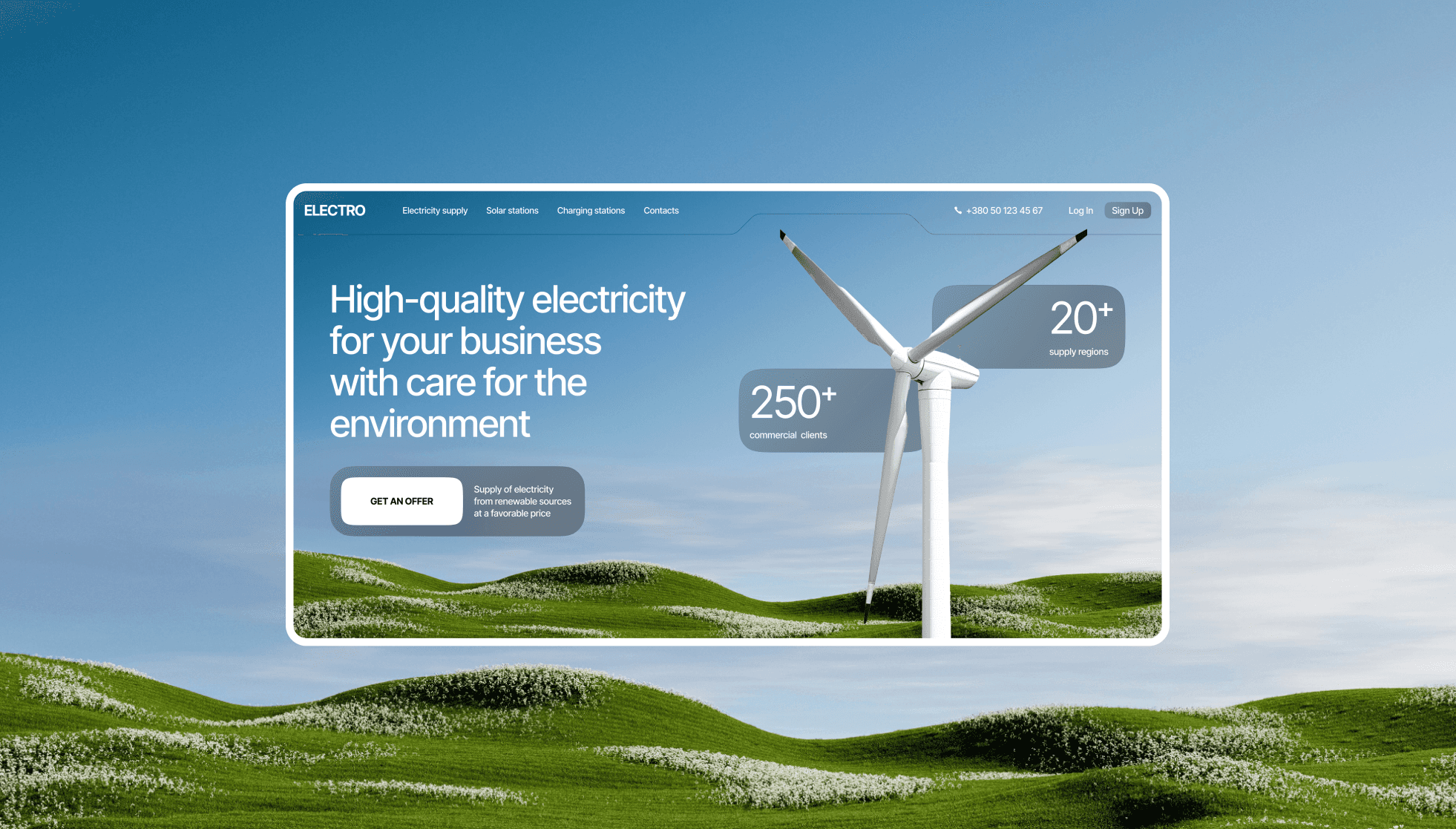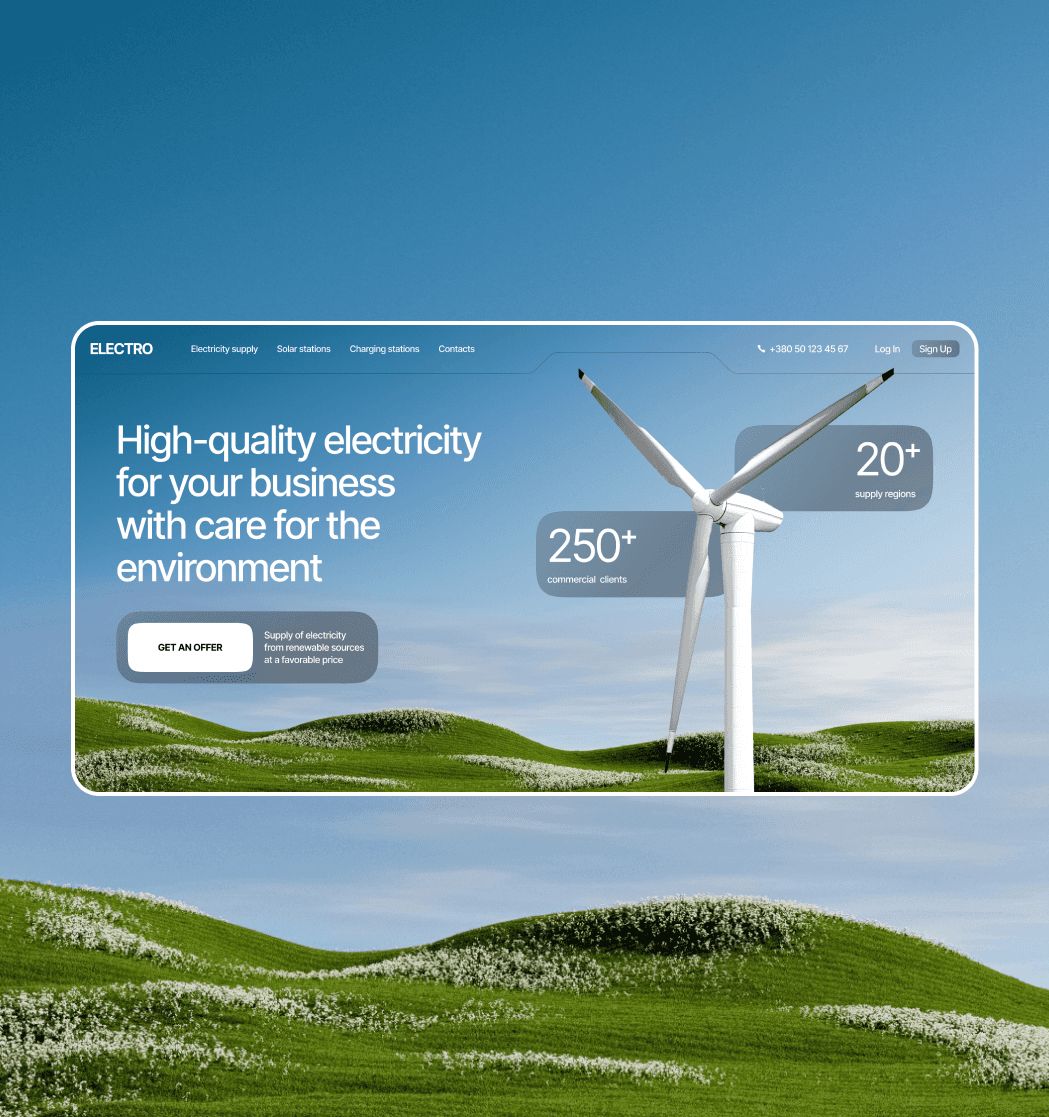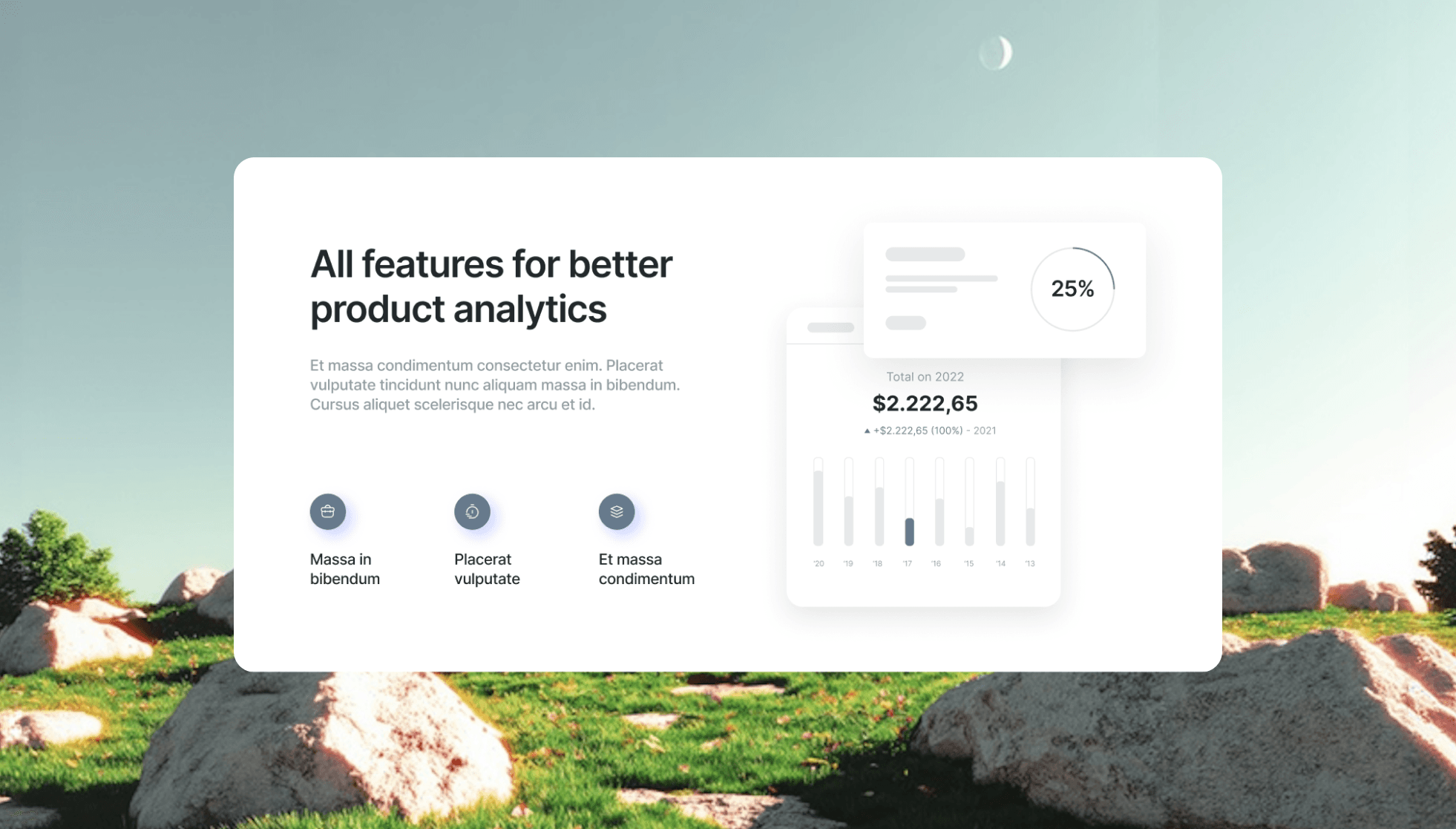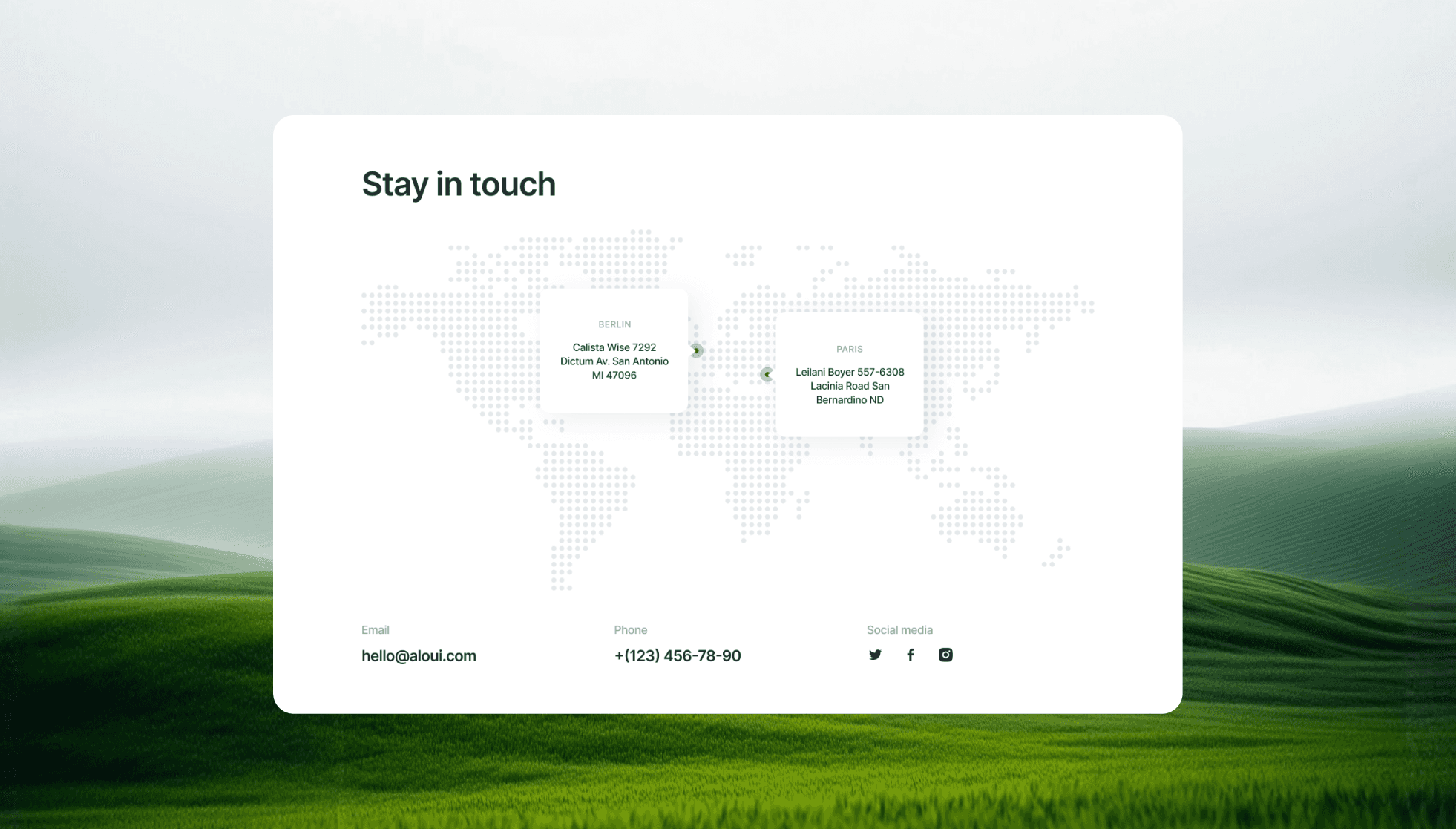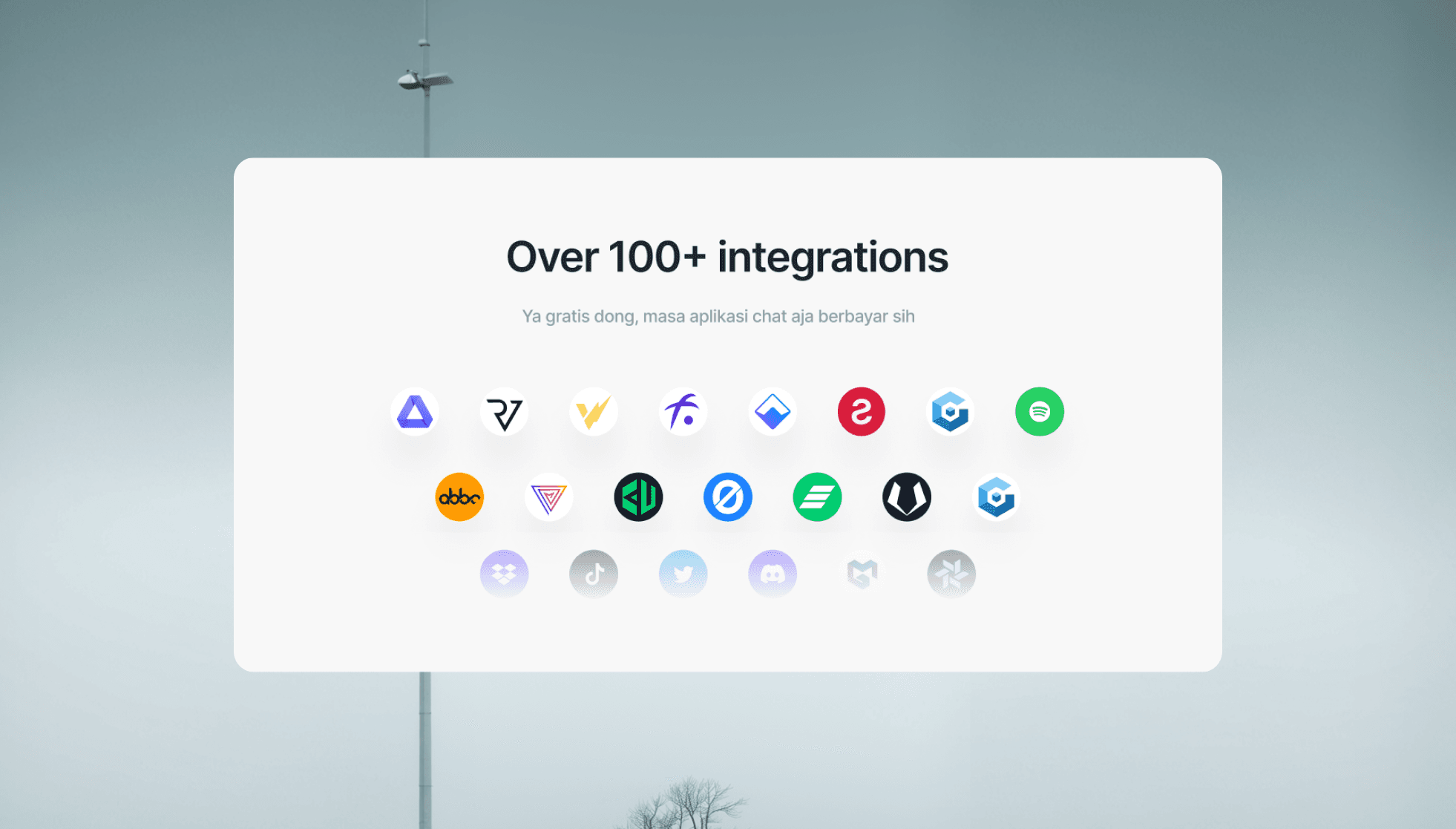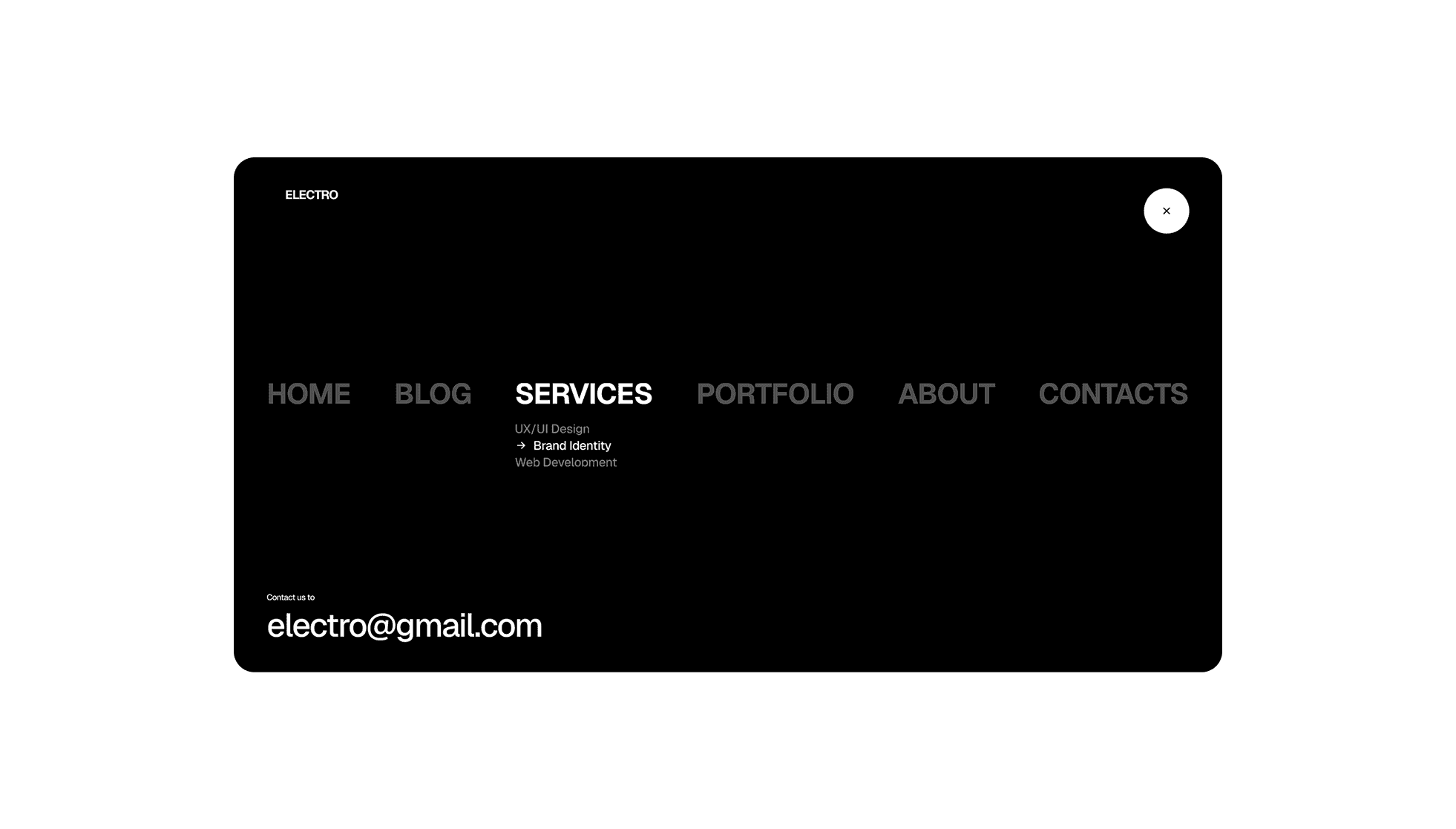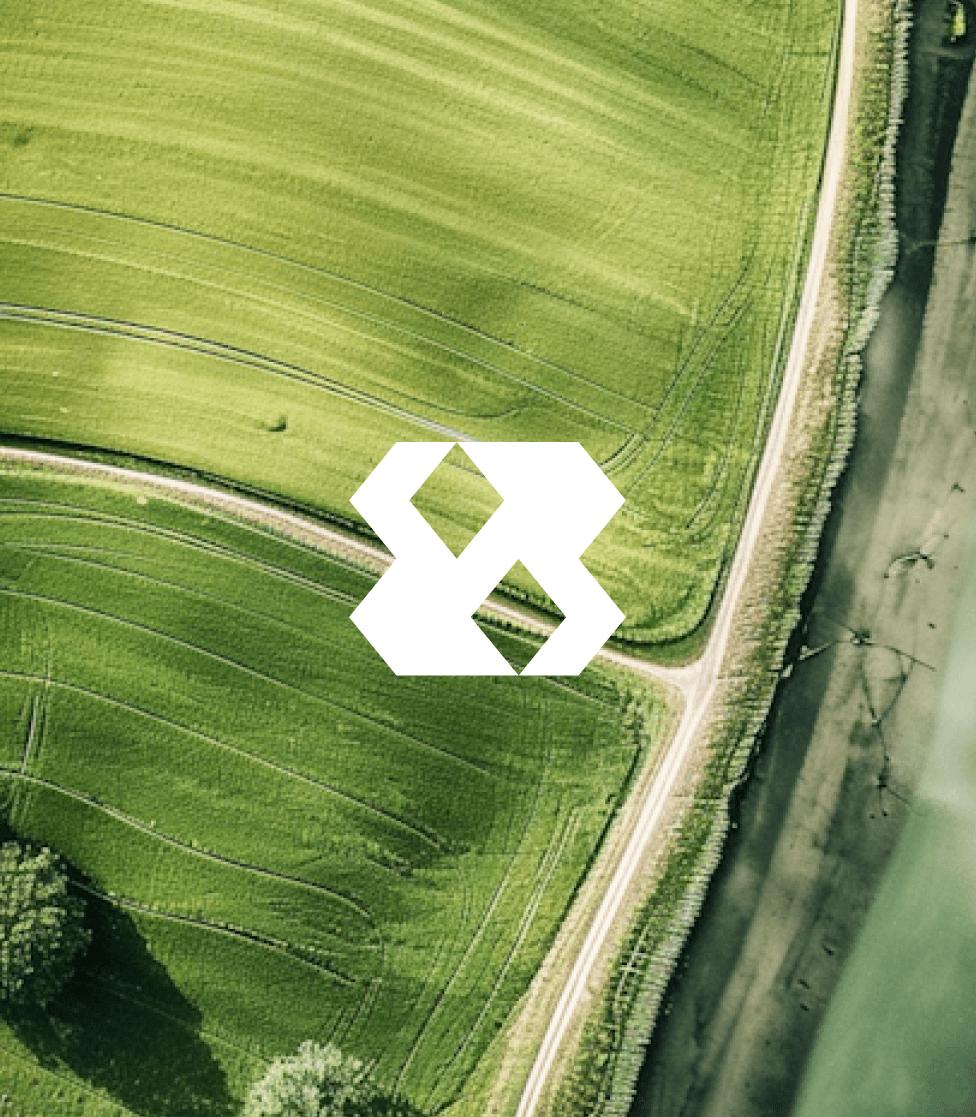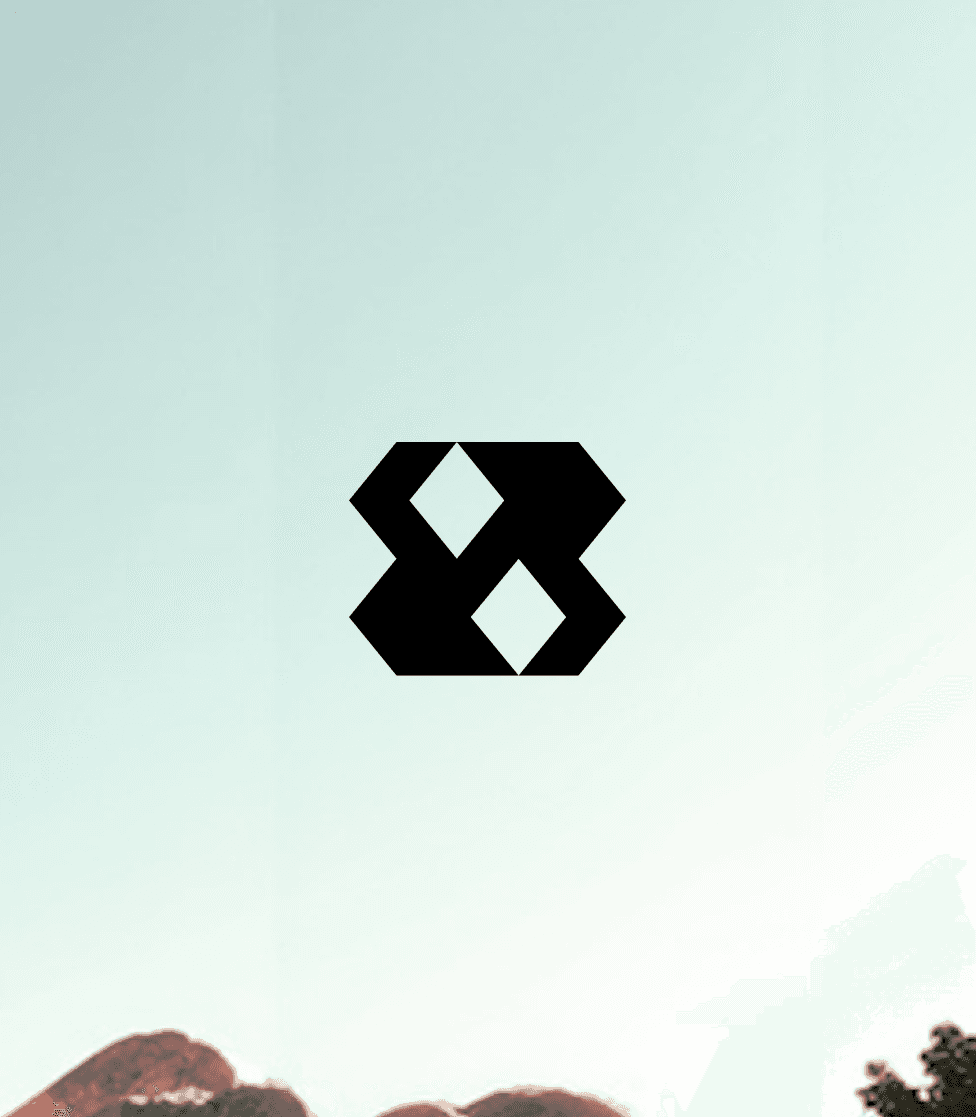
Electro is a renewable energy company that provides high-quality electricity for businesses while promoting sustainability and environmental care.
Our task was to create a fresh, modern identity and website that would reflect the brand’s innovation and responsibility toward the planet.
We built a calm, trustworthy identity around clean geometry and motion. The logotype uses rounded, turbine-inspired forms; a sky-blue and crisp white palette with a subtle green accent signals renewable energy and clarity. We paired a humanist sans for warmth with a technical mono for data labels. Iconography and soft capsules echo infrastructure modules (supply, solar, charging). Motion guidelines convey “stored → released” energy with gentle ease-in/out. A concise brand book covers logo use, color ratios, type scales, components, and imagery for web, print, and signage.
We developed a complete brand identity system, including logo, color palette, and typography that communicate stability and eco-awareness.
The website combines modern digital minimalism with friendly, human tone — bright imagery, clear content hierarchy, and flexible modular layouts.
The renewed brand and website helped Electro position itself as a reliable and forward-thinking energy provider.
After launch, user engagement increased by 40%, while the company gained over 250 commercial clients across 20+ regions.
The design captures Electro’s core idea: clean energy, clean design, clear purpose.
We created a visual identity that captures Solvra’s calm and intentional character.
The logo combines precision and softness, while the neutral color palette and spacious layout convey balance and trust.
Every element — from typography to imagery — was designed to express simplicity, focus, and quiet confidence.